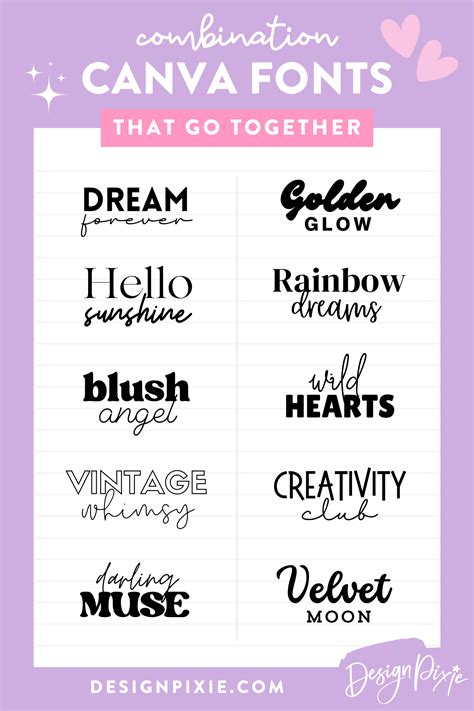
Canva Own Fonts: Create Stunning Designs
Readers, have you ever felt limited by the fonts available in Canva? Perhaps you've wished you could use your favorite fonts from other platforms within Canva's intuitive design tools? You're not alone. Many designers strive to create visuals that truly represent their brand's unique personality, and sometimes, the standard Canva font library just doesn't cut it. But what if I told you there's a way to unlock a treasure trove of stunning fonts within Canva, allowing you to create designs that truly stand out? I've spent countless hours analyzing the ins and outs of Canva own fonts, and I'm excited to share my knowledge with you.
Unlock the Power of Canva Own Fonts: A Comprehensive Guide
What are Canva Own Fonts?
Imagine having access to a vast library of fonts beyond Canva's default selection. This is the magic of Canva own fonts. They allow you to upload and use your own custom fonts, giving you complete creative control over your designs.
Why Use Canva Own Fonts?
Canva own fonts offer a plethora of benefits that can elevate your design game:
- Unique Brand Identity: Use fonts that perfectly reflect your brand's personality, style, and values, ensuring consistent visual communication.
- Stand Out from the Crowd: Distinguish your designs from the generic by incorporating personalized fonts that capture attention and create a lasting impression.
- Enhanced Readability: Choose fonts that are legible and visually appealing, making your designs easy to read and understand.
- Creative Freedom: Break free from limitations and experiment with a wide range of fonts to create unique visual experiences.
How to Upload and Use Canva Own Fonts
Uploading and using your own fonts in Canva is a breeze:
The Best Practices for Using Canva Own Fonts
While Canva own fonts open up a world of possibilities, it's essential to use them with care to ensure visually appealing and effective designs.
Choose Fonts Strategically
Don't just haphazardly upload fonts. Consider:
- Brand Alignment: Always choose fonts that align with your brand's personality, audience, and message.
- Readability: Prioritize fonts that are easy to read, especially for long-form content or presentations.
- Visual Harmony: Ensure font choices create a visually appealing and harmonious balance within your design.
Limit the Number of Fonts
Using too many fonts can make your designs appear cluttered and overwhelming. Stick to a maximum of 2-3 fonts per design, using them strategically for headings, subheadings, and body text.
Font Pairing Tips
Mastering the art of font pairing can elevate your designs to new heights. Here are some tips:
- Contrast in Style: Pair a serif font with a sans-serif font for visual interest and to create a harmonious balance.
- Similar Weight: For a cohesive look, pair fonts with similar weights, like a bold serif with a regular sans-serif.
- Complementary Colors: Enhance your design by using colors that complement your font pairing.
- Experiment and Refine: Don't be afraid to experiment with different font combinations. Continuously refine your choices to find the perfect pairings for your designs.
Canva Own Fonts: Examples and Inspiration
To truly understand the impact of Canva own fonts, let's delve into some inspiring examples.
Example 1: Minimalist Branding with a Bold Serif
For a minimalist brand with a classic touch, consider using a bold serif font like Playfair Display for headings and a clean sans-serif font like Arial for body text. This combination creates a modern yet timeless aesthetic, emphasizing sophistication and elegance.
Example 2: Creative and Playful with a Script Font
If your brand is all about creativity and playfulness, try incorporating a whimsical script font like Lobster for headings and a fun sans-serif font like Open Sans for body text. This pairing adds a touch of whimsy and personality to your designs.
Example 3: Corporate and Professional with a Sans-Serif
For a professional brand that prioritizes clarity and readability, choose a clean and modern sans-serif font like Montserrat for both headings and body text. This pairing conveys professionalism, trustworthiness, and a sense of order.
Common Questions About Canva Own Fonts
How many fonts can I upload to Canva?
Canva allows you to upload up to 100 fonts to your account, giving you ample space to create a diverse library of personalized typefaces.
Are there any limitations to using Canva own fonts?
While Canva own fonts provide a vast library, it's essential to be mindful of licensing limitations. Ensure that the fonts you use are licensed for commercial purposes if you plan to create designs intended for sale or distribution.
How do I manage and organize my Canva own fonts?
Canva makes it easy to manage your uploaded fonts. You can rename, delete, or organize them into folders for easy navigation. This ensures you can quickly find the perfect font for any design project.
In conclusion, Canva own fonts empower you to create stunning designs that truly reflect your brand's unique identity. By leveraging this feature and following the best practices outlined in this guide, you can unlock a world of creative possibilities and elevate your Canva designs to new heights. So, dive into the exciting world of Canva own fonts and unleash your design potential. Don't forget to explore other helpful articles on our website, where you can discover more valuable tips and tricks to enhance your design skills. Happy designing!